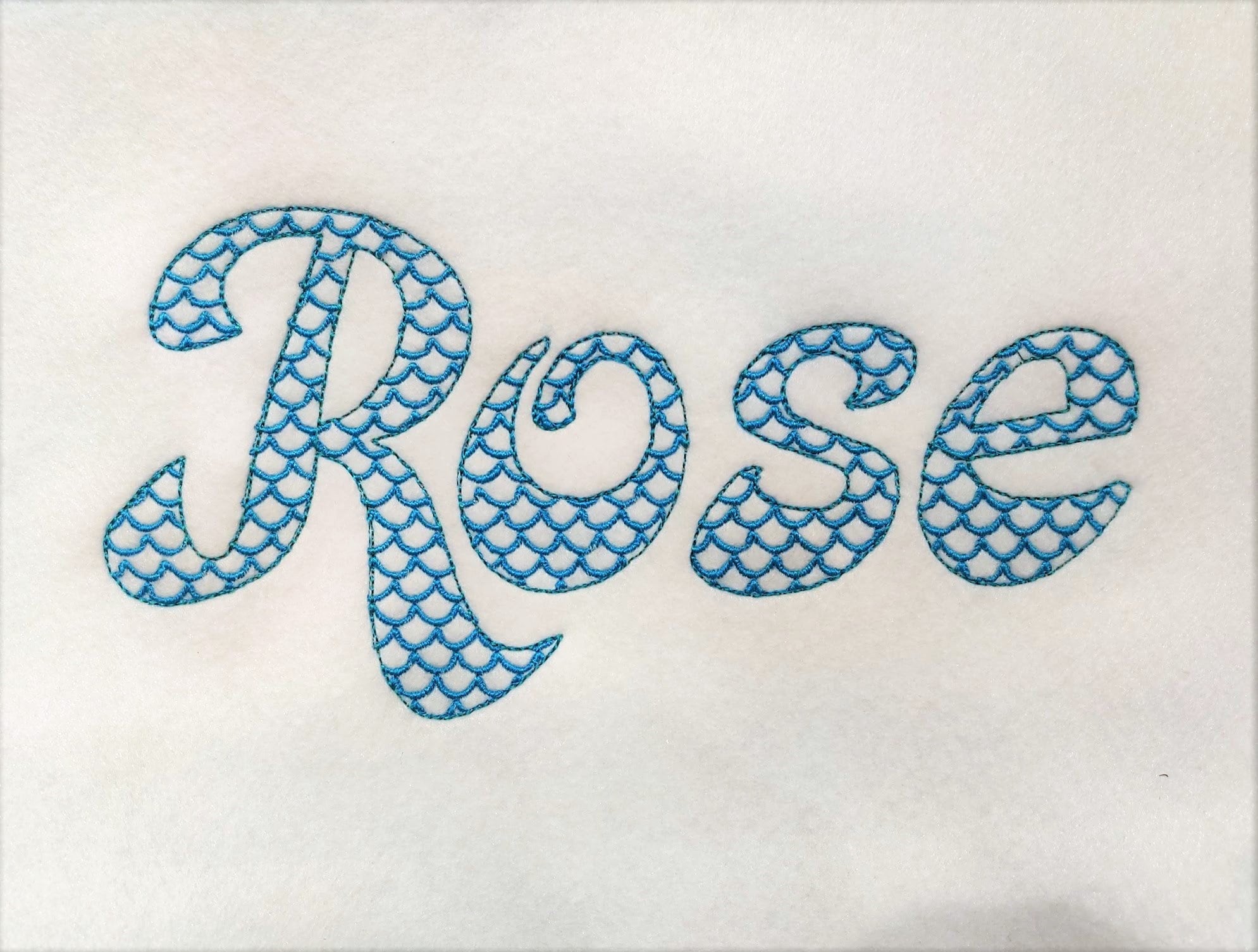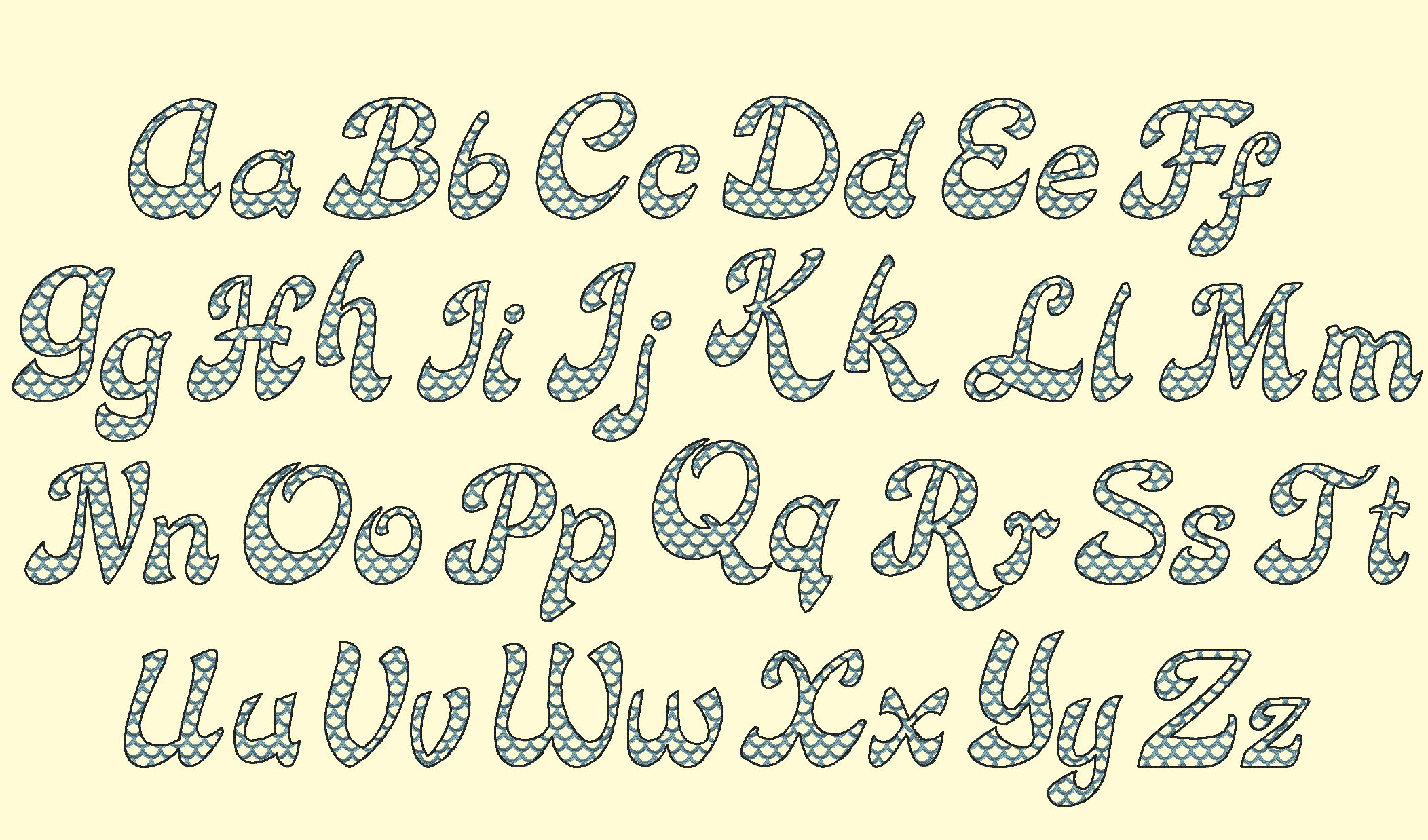
Mermaid scallops are part of embroidery. They are stitches. This is light stitch font , so your design will be transparent with polka dots there. It looks Stunning!
2 inches - shown on photo